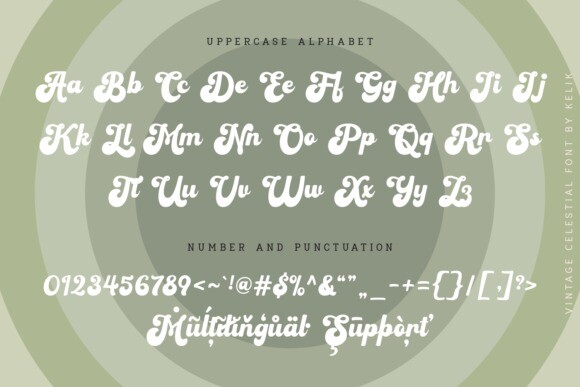
Vintage Celestial Font
Vintage Celestial Font, where timeless elegance meets the captivating allure of retro vintage aesthetics. This typeface effortlessly encapsulates the very essence of nostalgia, groove, and a classic yet modern design. “Vintage Celestial” isn’t just a font, it’s a portal to the bygone era, a perfect companion for evoking the past’s sentiments, and an impeccable choice for branding, sublimation, social media, and a myriad of creative pursuits. Its enduring charm will whisk you away to a gilded age of boundless creativity and unmatched style, rendering it an indispensable and adaptable asset for every conceivable project.